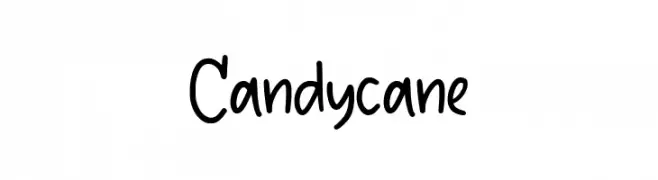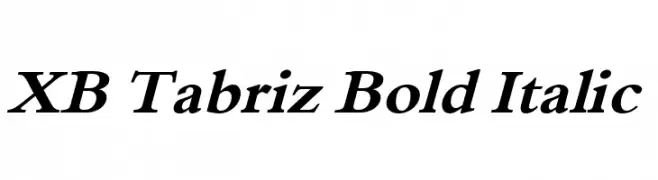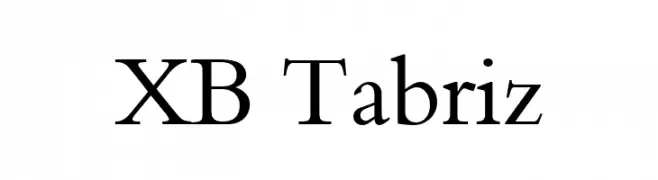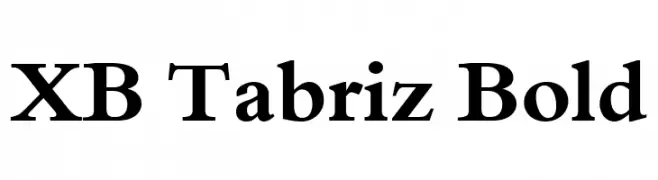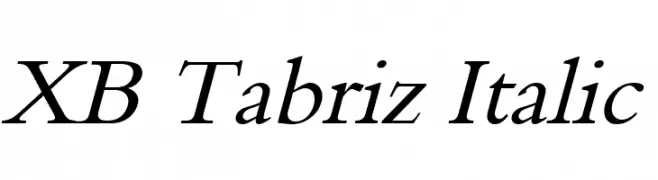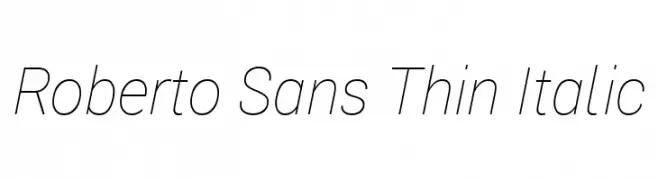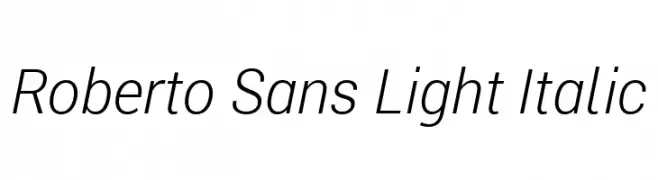
A cursive, handwritten font with elegant, flowing strokes.
A bold, italic serif font with strong strokes and elegant slant.
A classic serif font with elegant strokes and refined proportions.
A bold, classic serif font with strong strokes and elegant curves.
An elegant serif typeface with a refined italic style and graceful curves.
A modern sans-serif italic font with clean lines and a professional appearance.
A bold, italic sans-serif font with a modern and dynamic style.
A modern, thin, and italic sans-serif font with a clean and minimalist design.
A sleek, modern sans-serif font with a light, italic style.